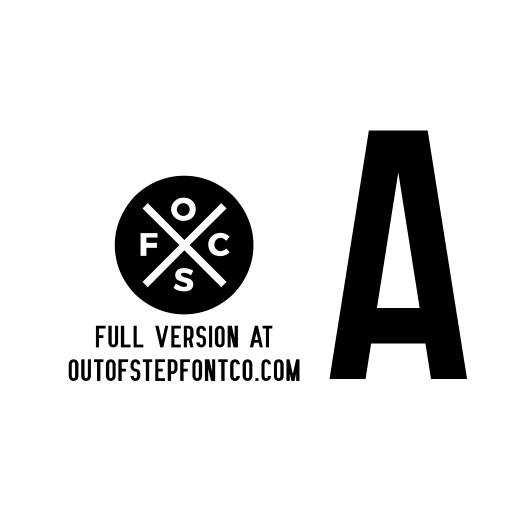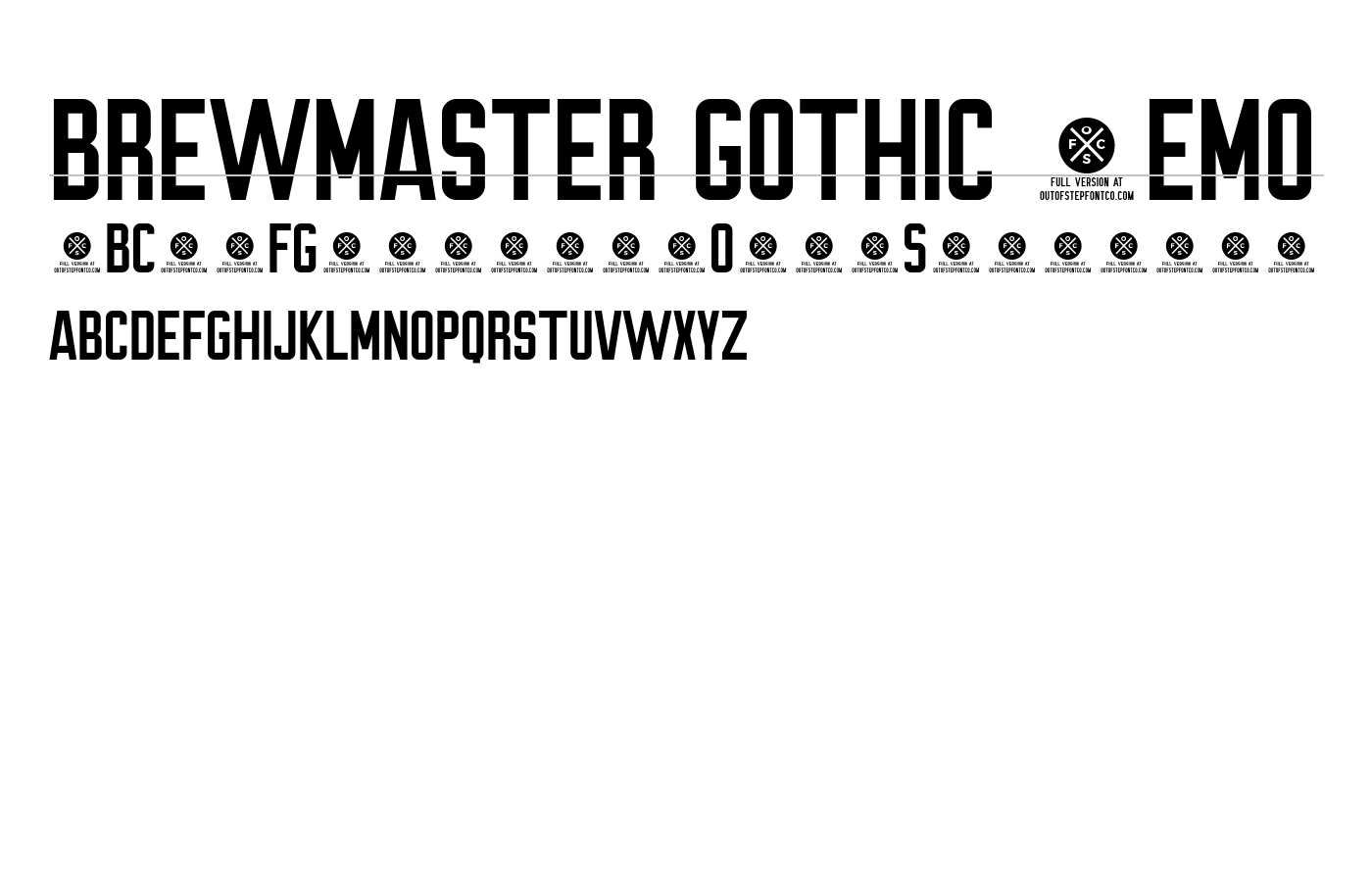
Brewmaster Gothic is a bold, condensed sans serif font with a tall x-height and clean, geometric strokes that give it a modern, industrial feel. Its sharp edges and uniform stroke weight make it stand out strongly in headlines and branding, especially where a sleek, contemporary look is desired. This font works well for logos, posters, and packaging that want to convey strength and clarity with a stylish, no-nonsense attitude.
Brewmaster Gothic Font
About Brewmaster Gothic Font
| Font family | Brewmaster Gothic Font |
| Designer | Out Of Step Font Company |